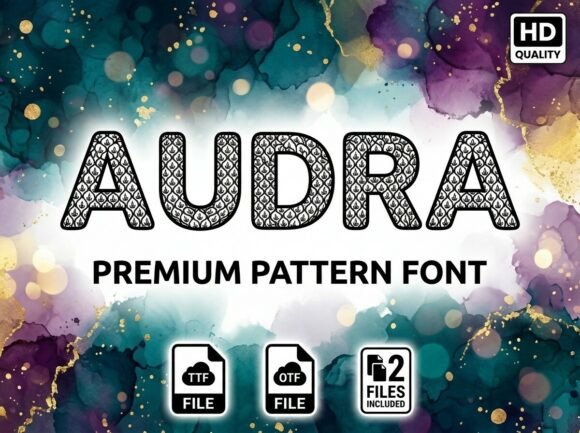
Discover the Luxurious Soul of Audra Font
I’ll never forget the design moment that led me to Audra Font. I was working on a luxury candle packaging project for a high-end client, and I was struggling to find the perfect font that exuded sophistication and elegance. The client wanted a design that felt premium, yet unique and eye-catching. That’s when I stumbled upon Audra Font, and it instantly became the perfect fit.
A Personal Review of Audra Font
- 💯 Unique texture: The internal texture of rhythmic, hand-drawn “scalloped scales” or “art deco” patterns gives Audra Font a distinctive, luxurious feel.
- ✅ Elegant personality: The bold, rounded letterforms convey a sense of sophistication and refinement, making it perfect for high-end branding.
- 🔥 Versatility: Audra Font works beautifully for various design applications, from wallpaper identities to social media headers.
While Audra Font is an exceptional typeface, there are a few things to keep in mind:
- 🤔 Legibility at small sizes: Due to its intricate texture, Audra Font may not be the best choice for body text or small font sizes.
- ⚠️ Pairing with other fonts: Audra Font’s bold personality can be overwhelming when paired with other fonts; use it as a display font to make a statement.
A Practical Guide to Using Audra Font
- Experiment with OpenType features, such as stylistic alternates, to add visual interest to your design.
The Backstory of Audra Font
Audra Font was designed with the intention of capturing the essence of luxury and sophistication. The designer aimed to create a font that would bridge the gap between vintage textile design and modern premium branding. Inspired by the opulence of art deco patterns and the elegance of high-end fashion, Audra Font was born.
Q: What is the best use case for Audra Font?
A: Audra Font is ideal for high-end branding, luxury packaging, and premium design applications where a sense of sophistication and elegance is required.
Q: Can I use Audra Font for body text?
A: While Audra Font is an exceptional display font, it may not be the best choice for body text due to its intricate texture and potential legibility issues at small sizes.
Q: Is Audra Font suitable for digital use?
A: Yes, Audra Font is suitable for digital use, including social media headers, website titles, and digital advertising.